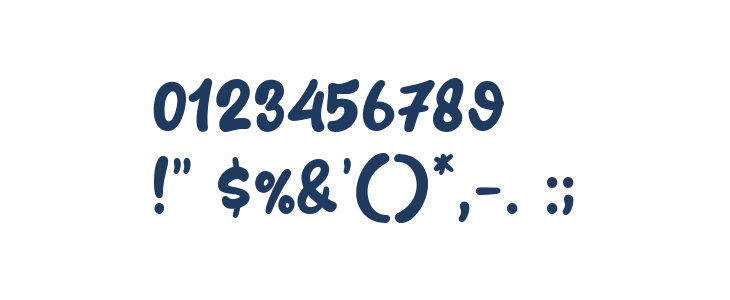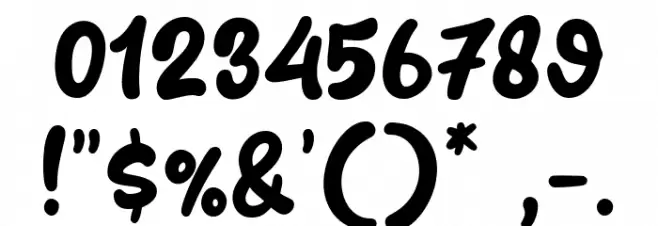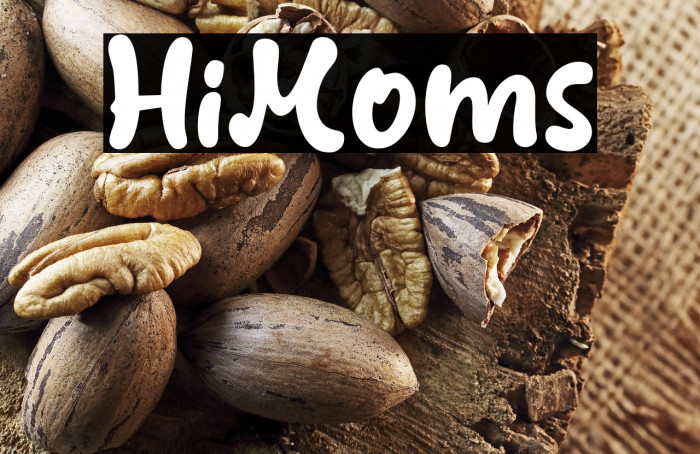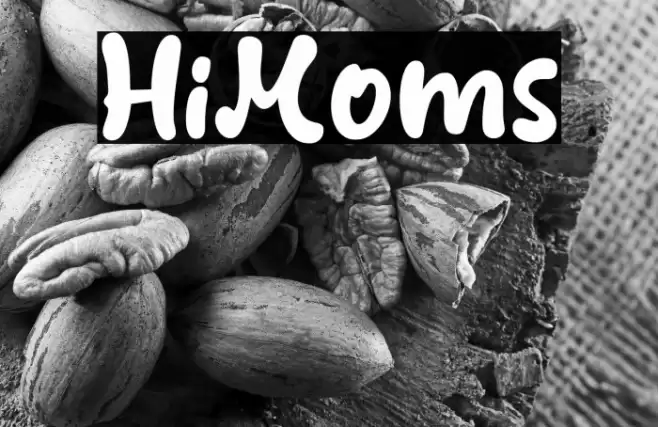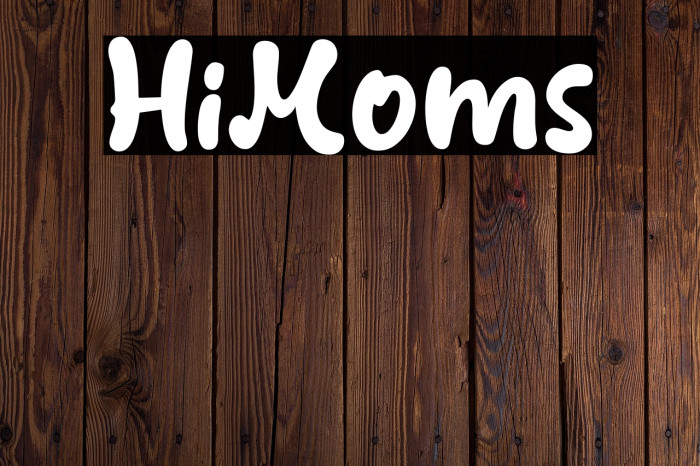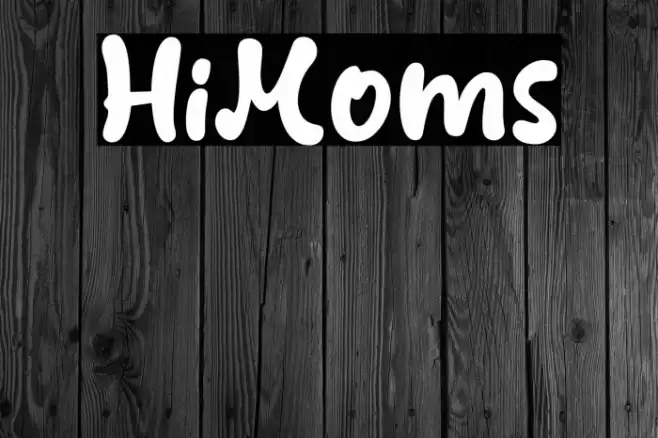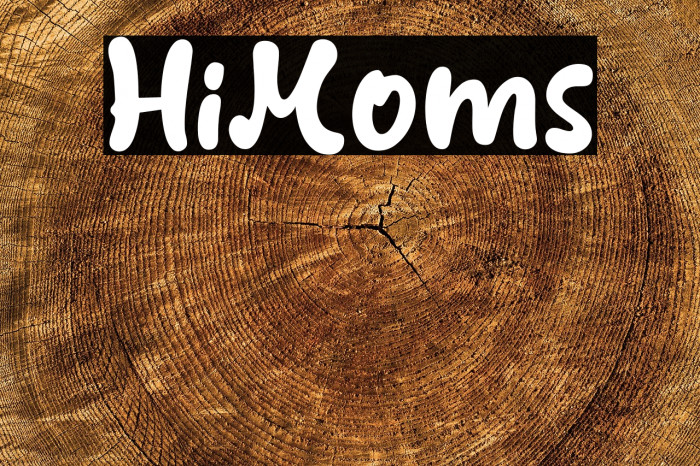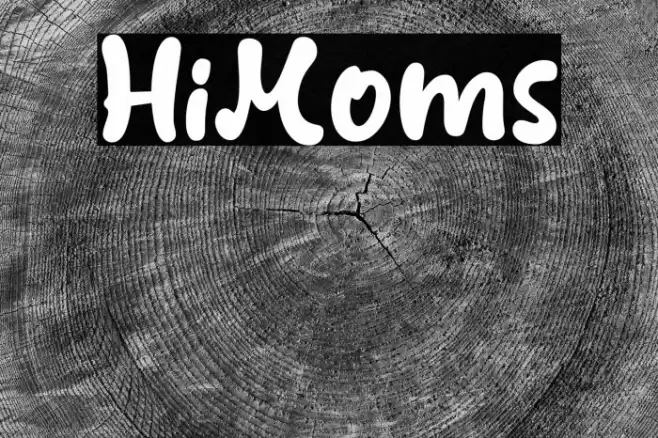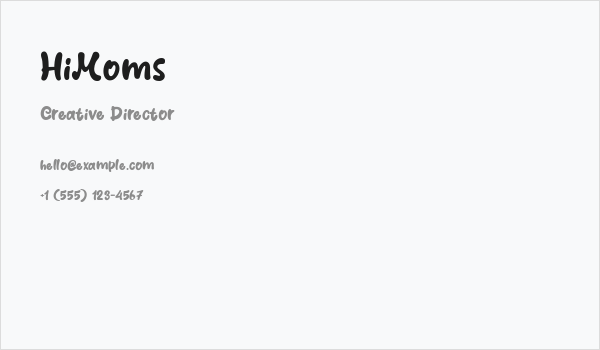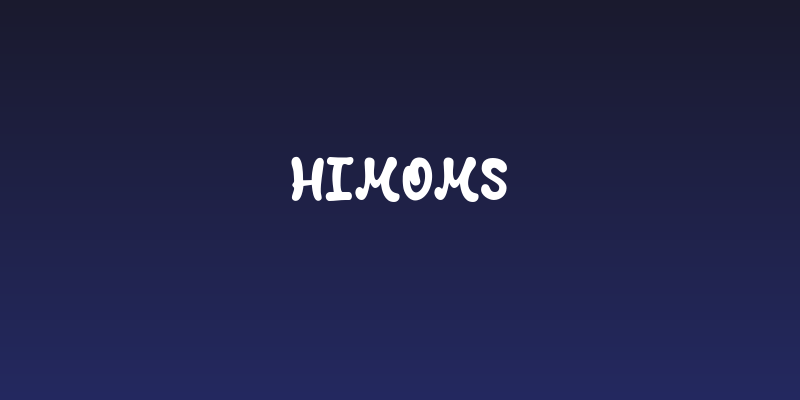
HiMoms Font
HiMoms Description
This playful and bold font features a handwritten style with a casual and friendly appearance. The letters are rounded and slightly irregular, giving it a lively and informal feel. The uppercase and lowercase characters maintain a consistent style, with smooth curves and a slight slant that adds to its dynamic nature. The numbers and special characters are designed to match the overall aesthetic, ensuring a cohesive look across all elements. This font is ideal for projects that require a personal touch or a fun, approachable vibe.
| Proposed Projects | Great for greeting cards, children's books, playful branding, and social media graphics. |